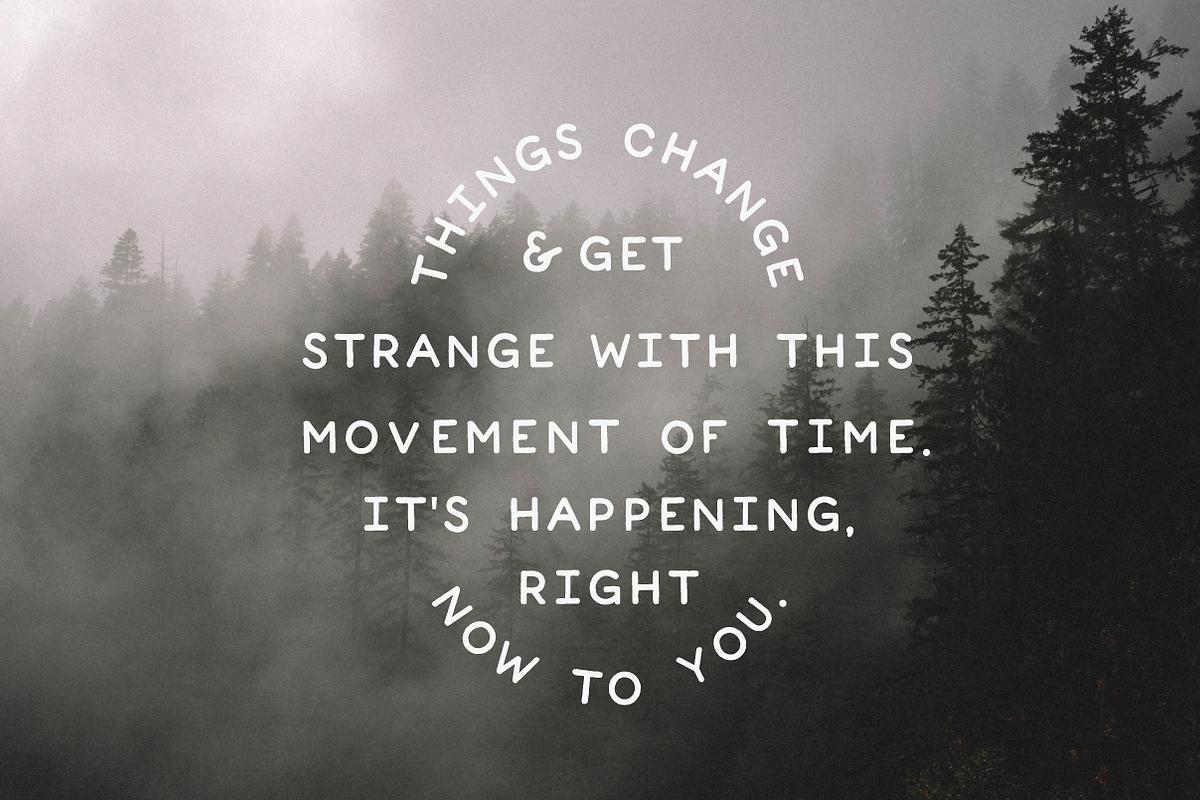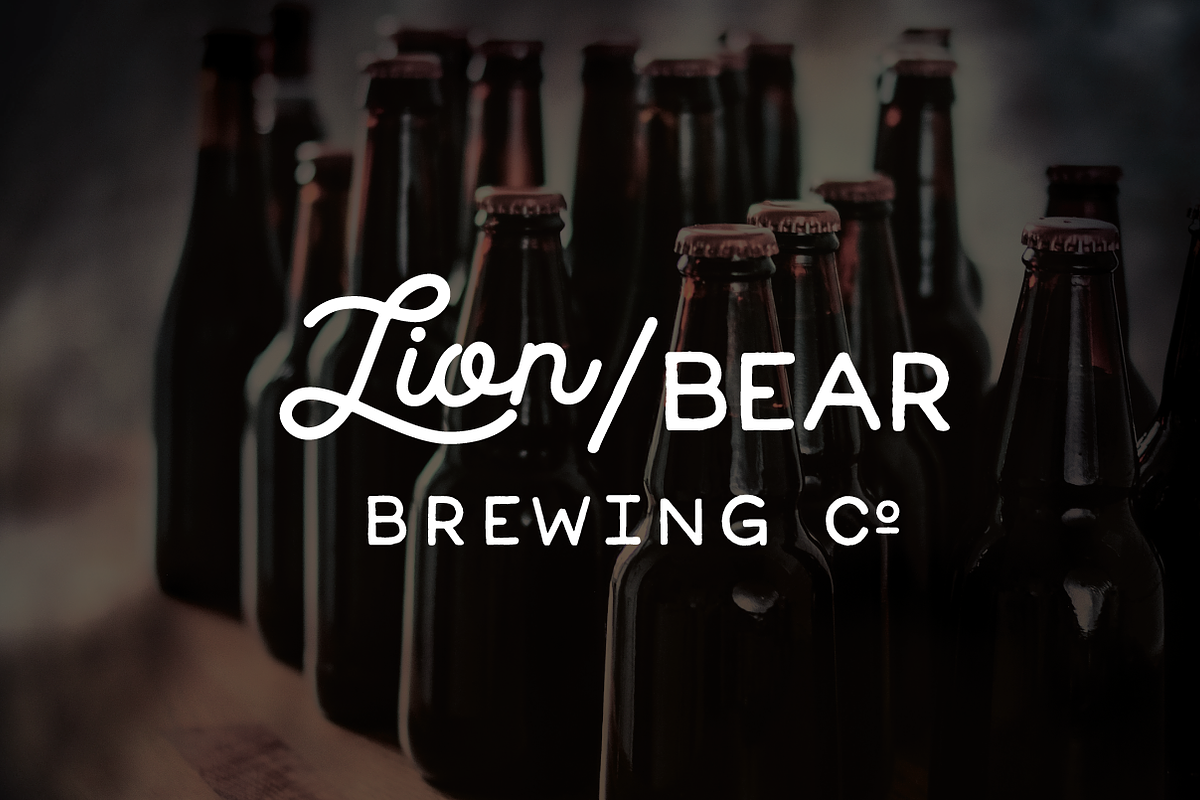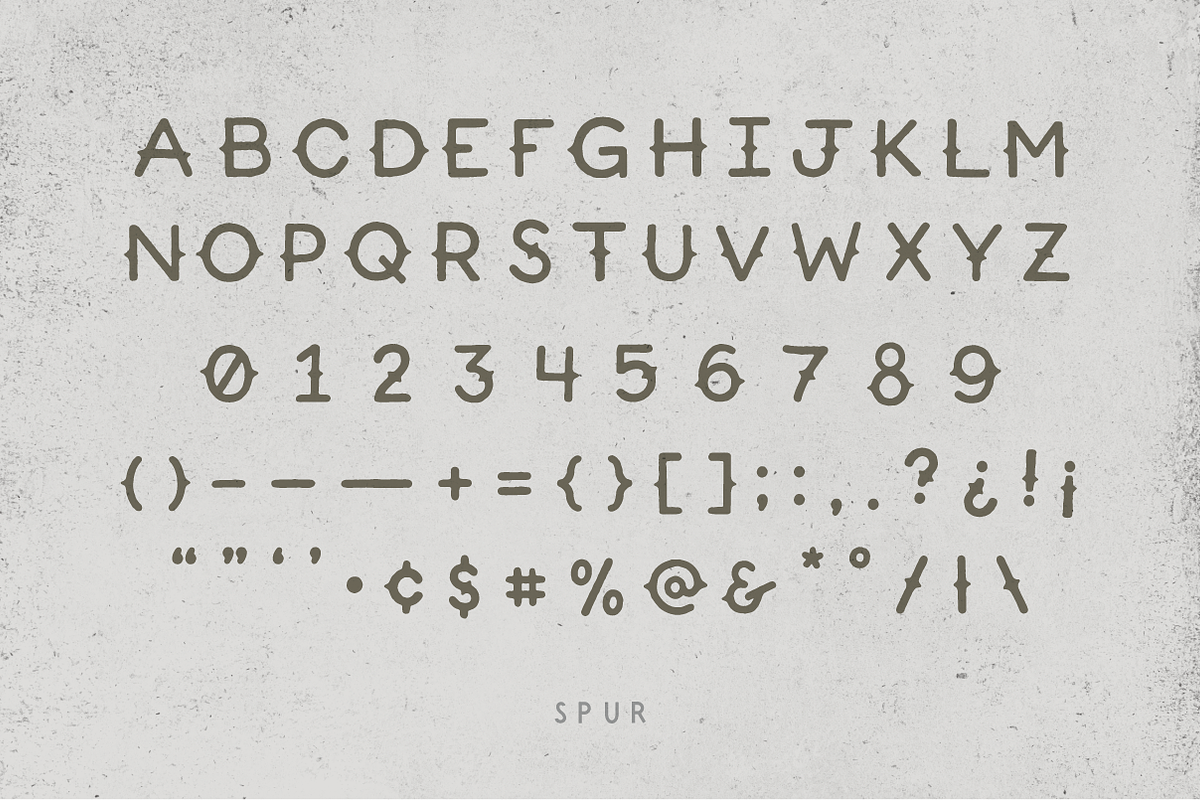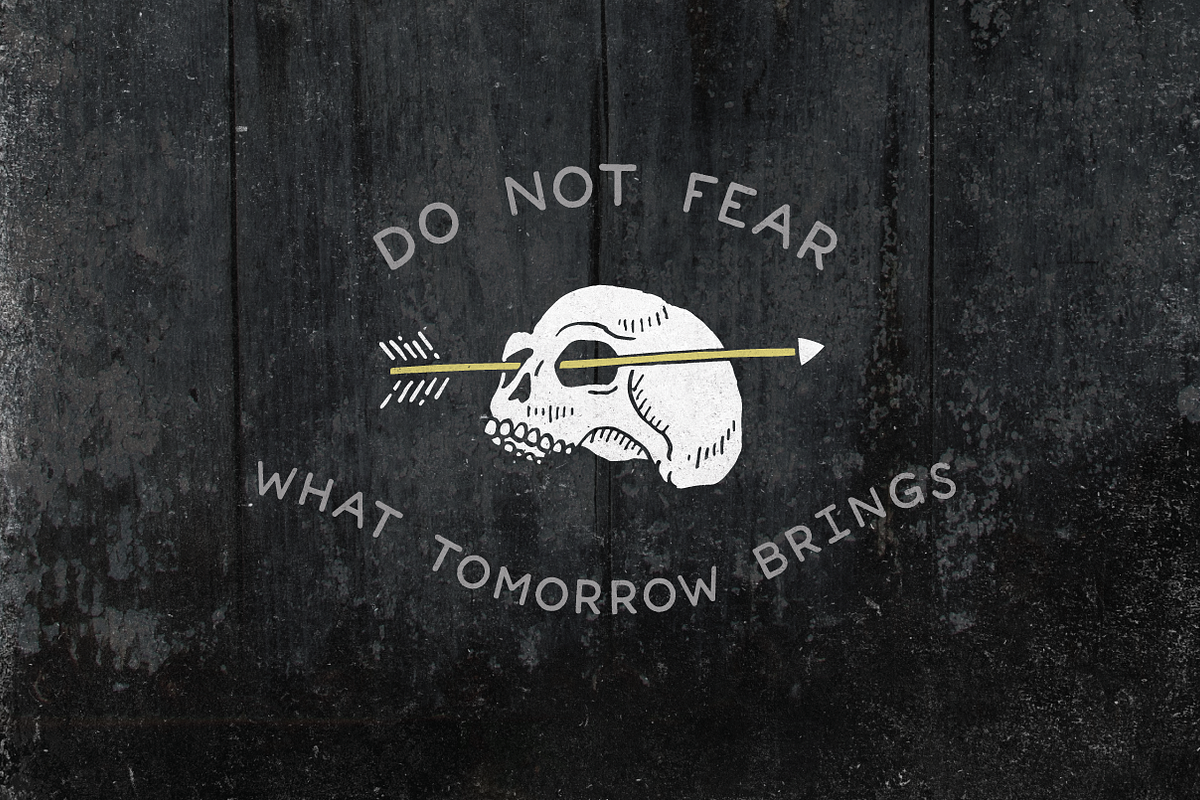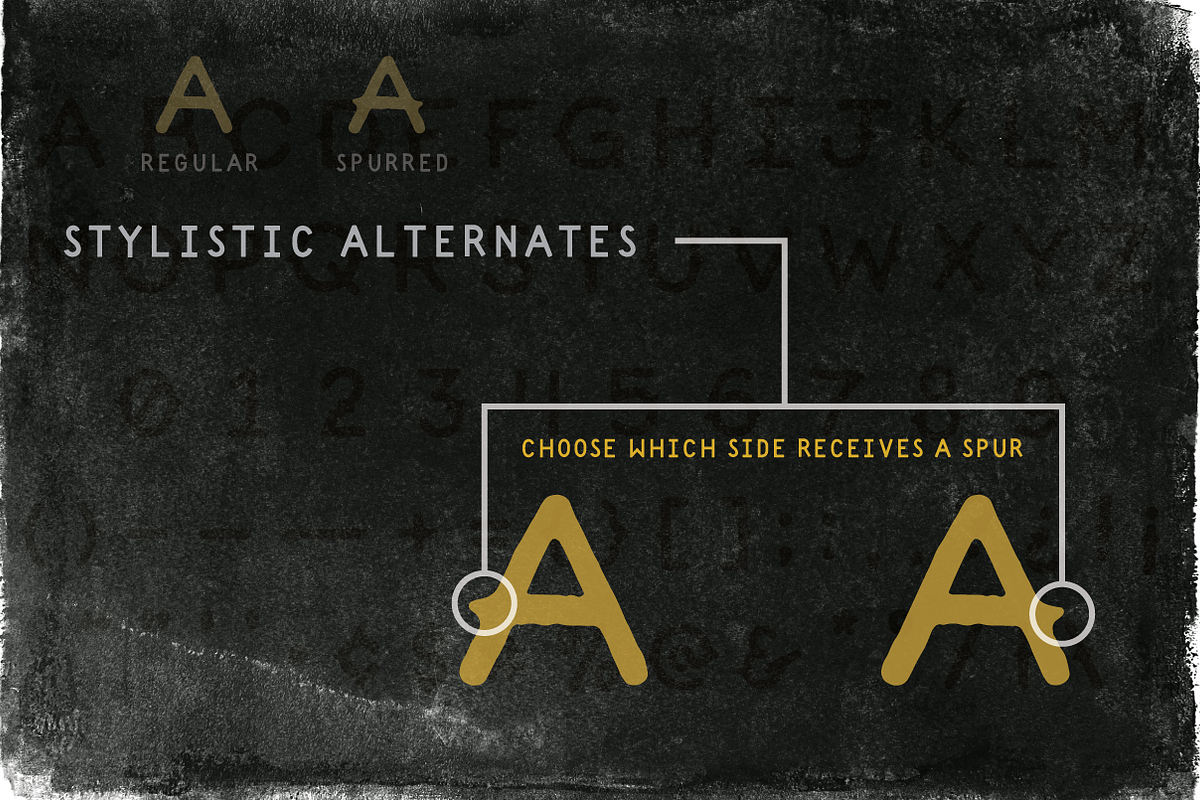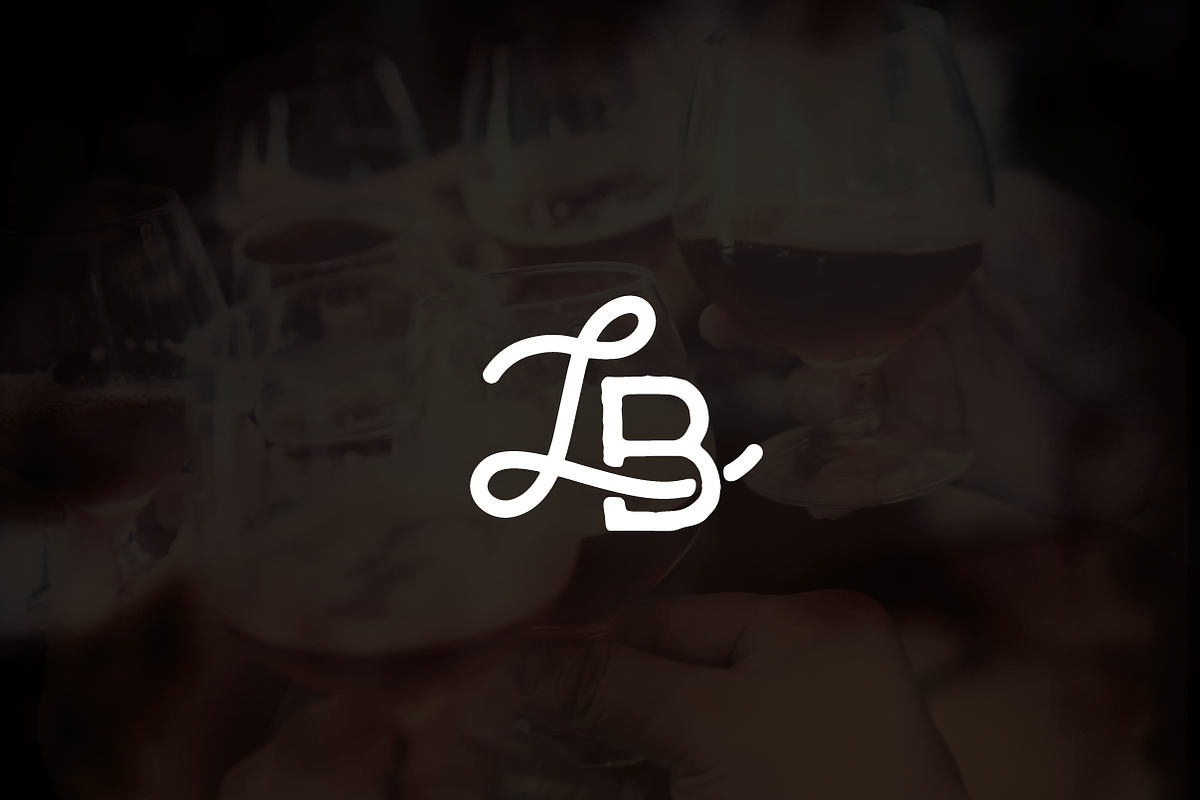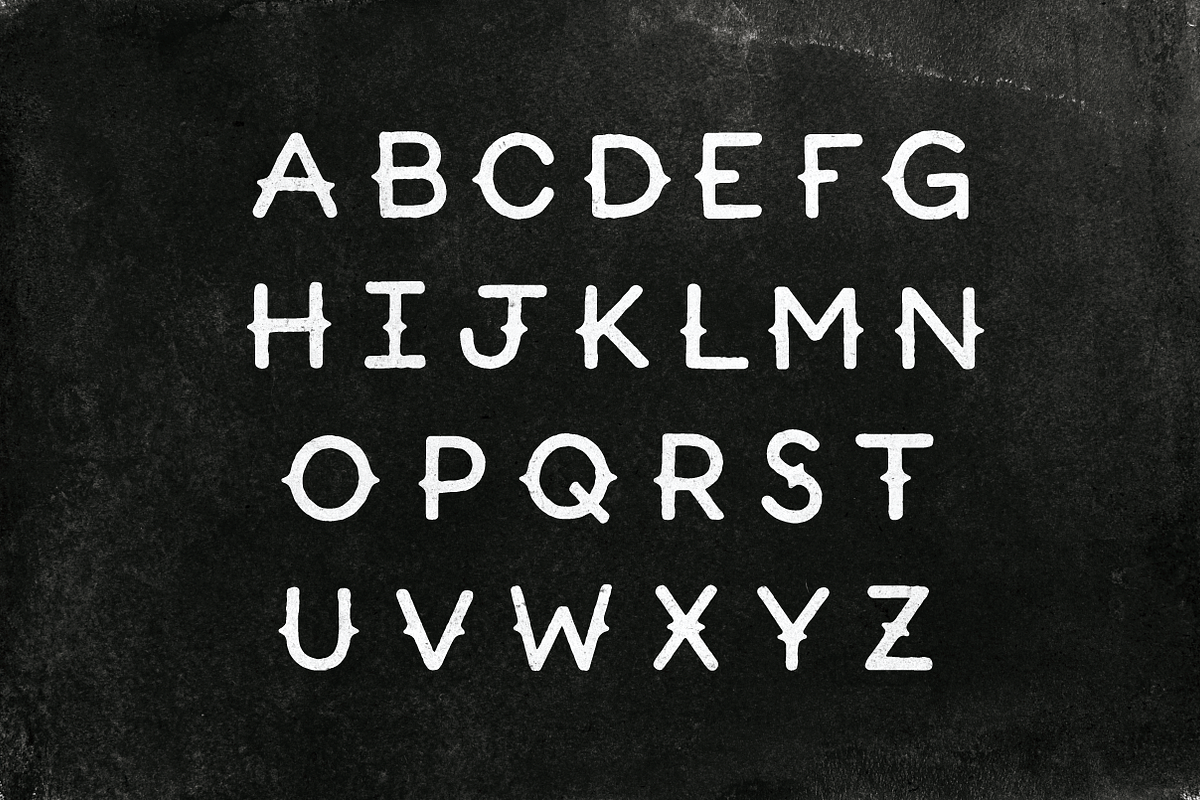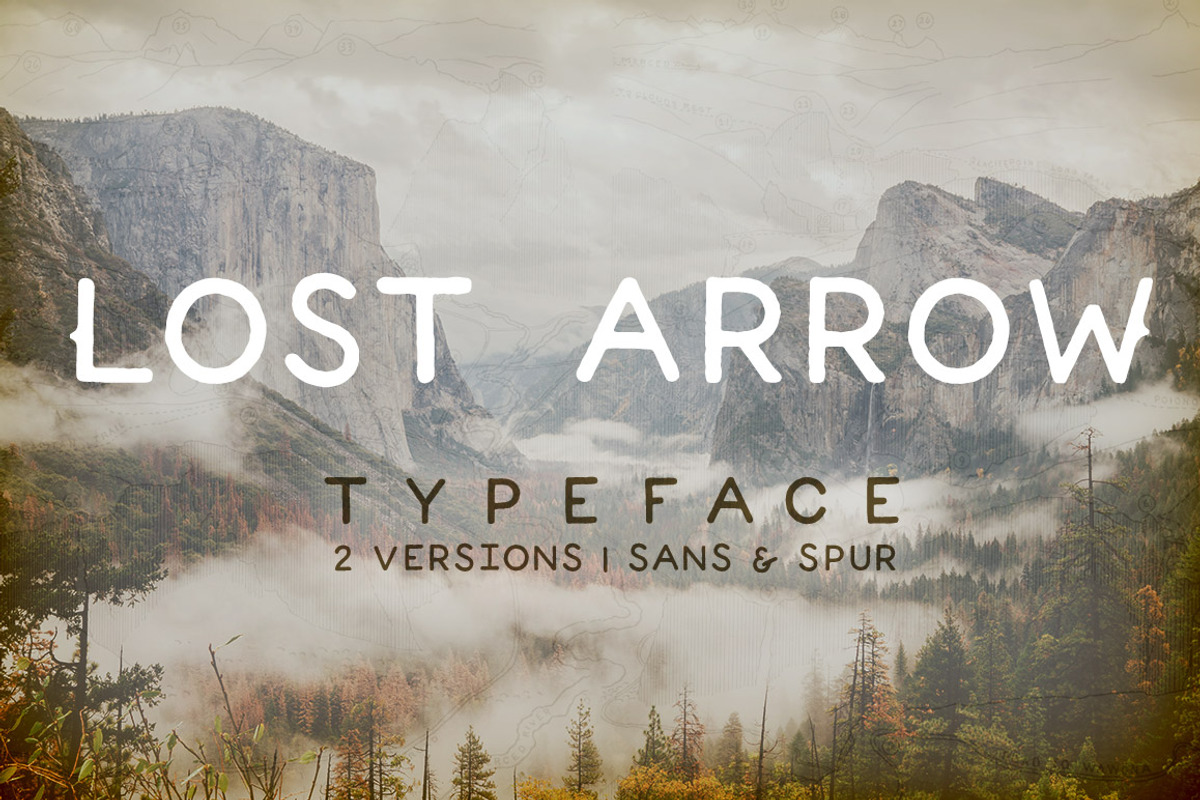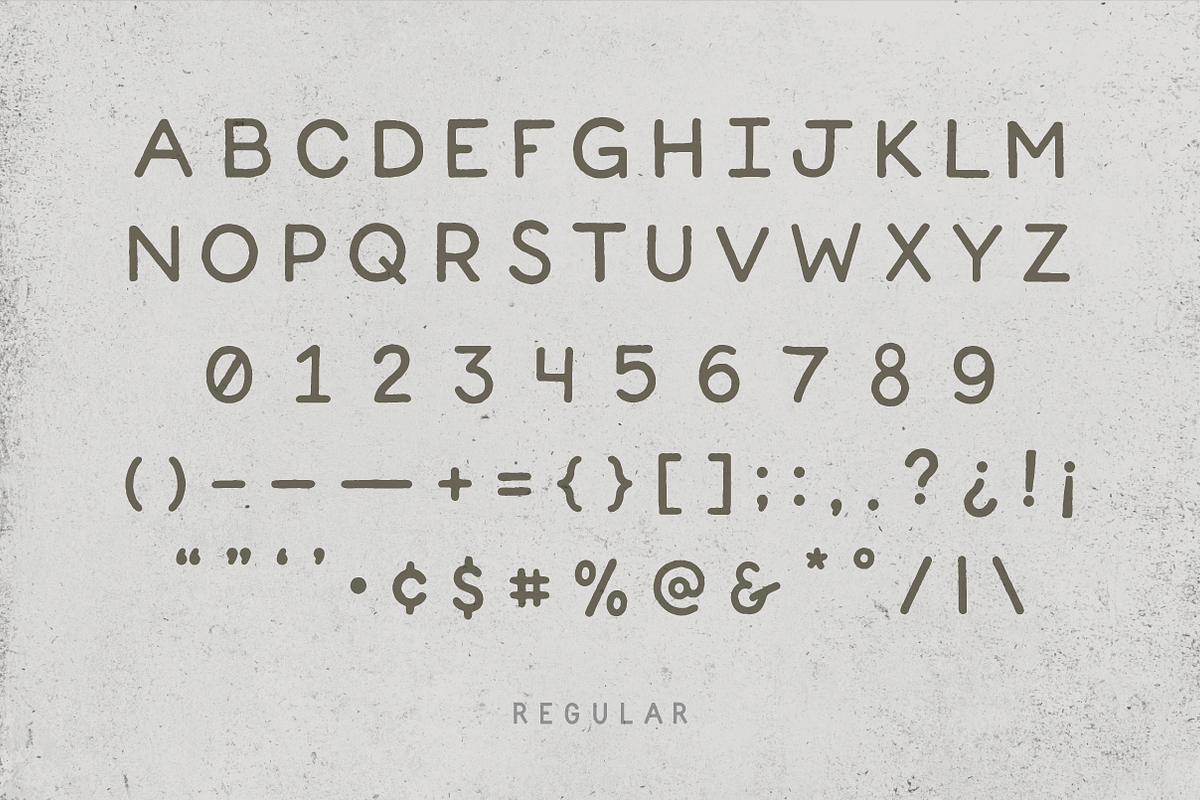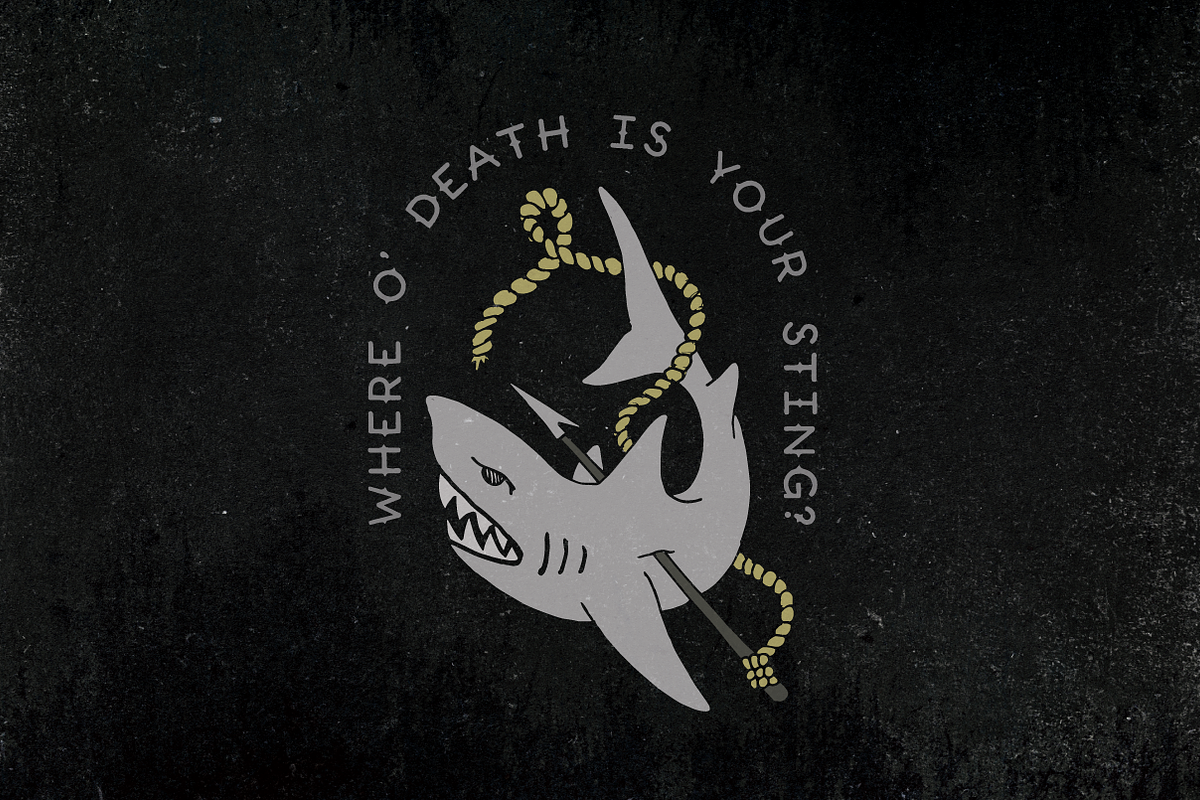
Lost Arrow
Lost Arrow is a simple, handdrawn, sans serif font with rough edges. This typeface includes a Sans and Spur variation. Lost Arrow Spur includes stylistic alternates, allowing you to choose which side of each letterform receives a spur (see diagram above). Lost Arrow contains an uppercase alphabet with numbers and symbols.
Lost Arrow typeface borrows its name from Lost Arrow Spire Chimney, in Yosemite National Park. The route is considered a classic around the world.
Basic Latin-1 character set, which covesr popular Western European languages such as Danish, Dutch, English, Finnish, French, German, Irish, Italian, Norwegian, Portuguese, Spanish and Swedish.